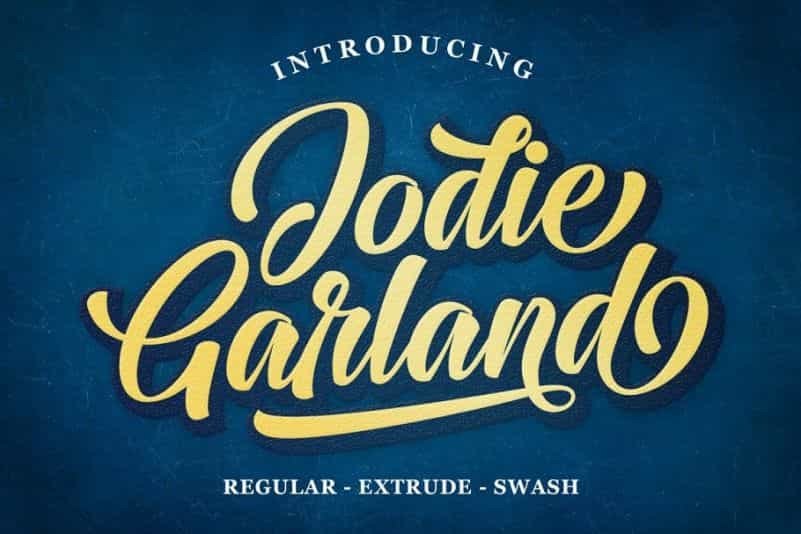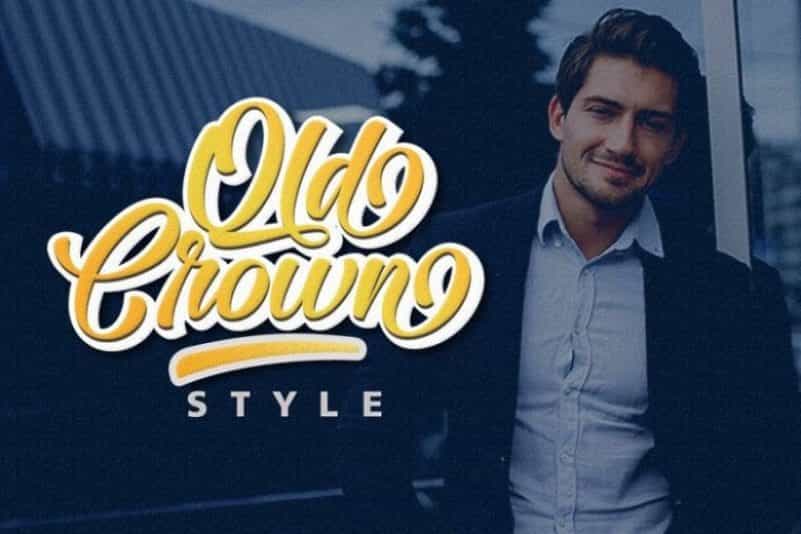
Jodie Garland Script is Retro style combined with Handwriting style. The Jodie Garland Script has a lot of other swash and features like stylistic alternative, stylistic set, ligature and swash so you can combine them in any way you like.